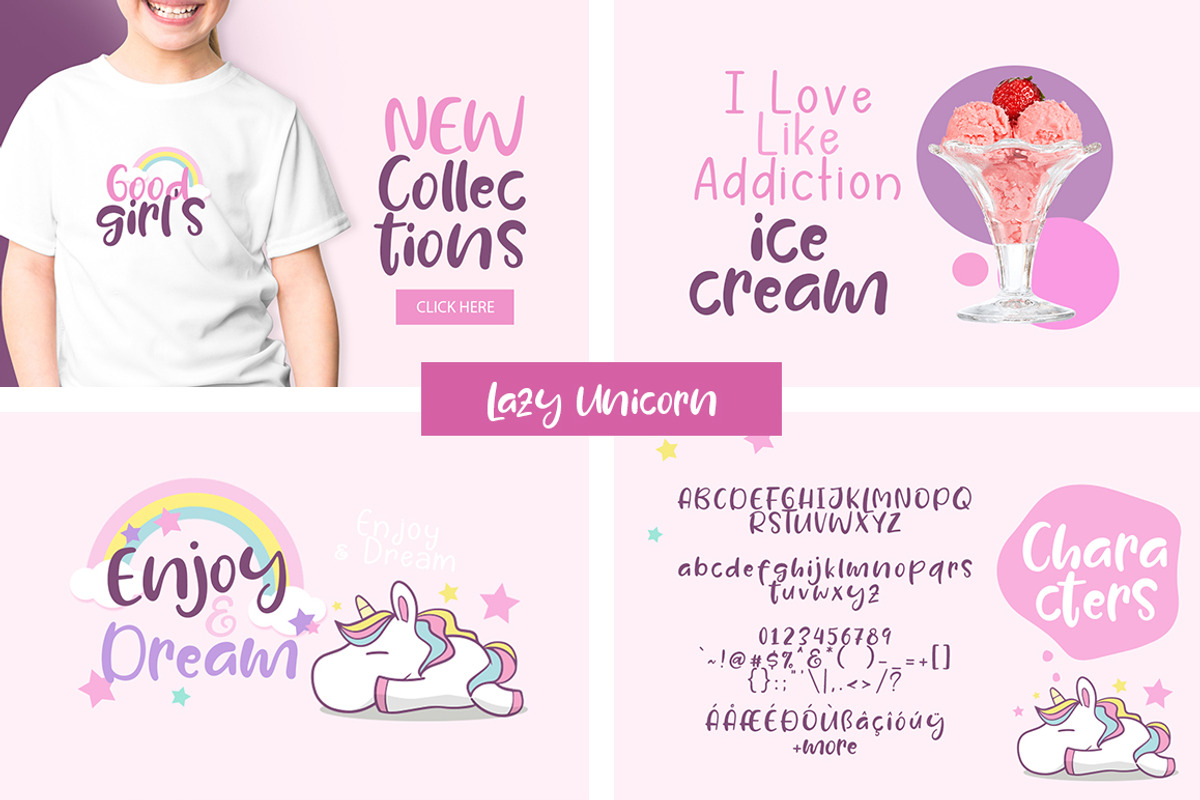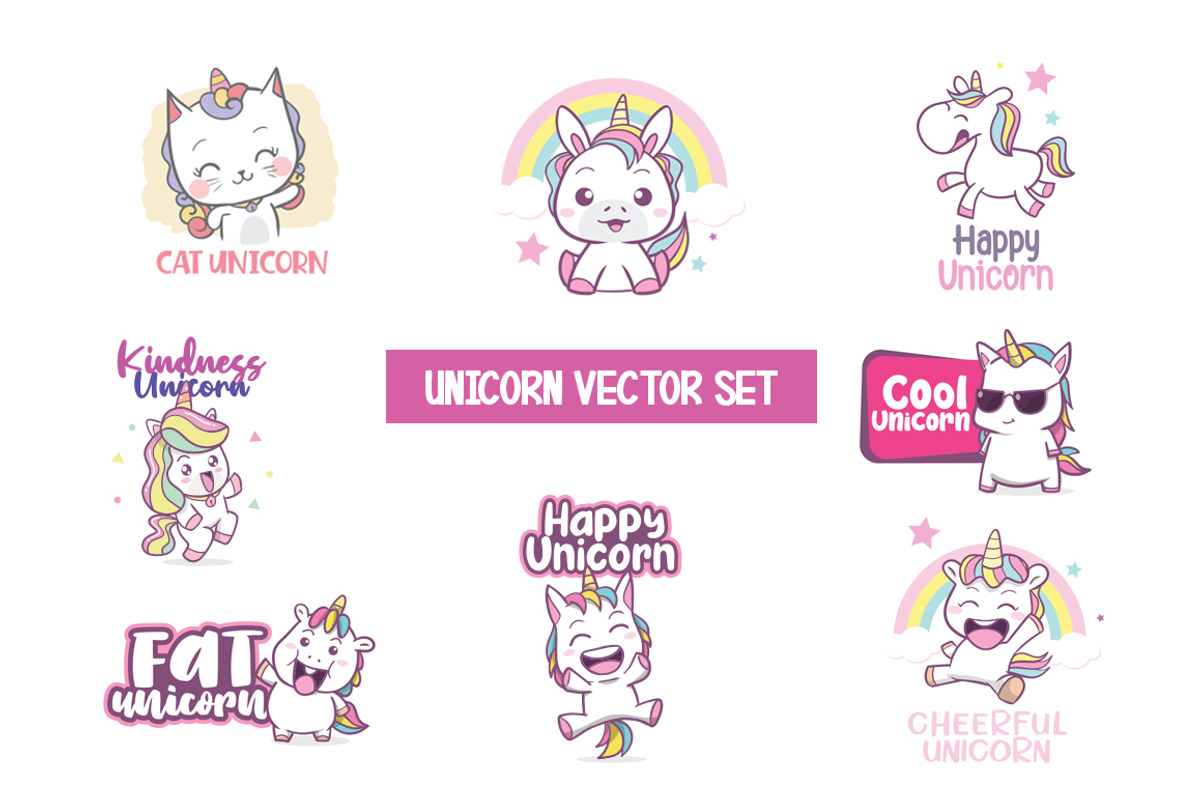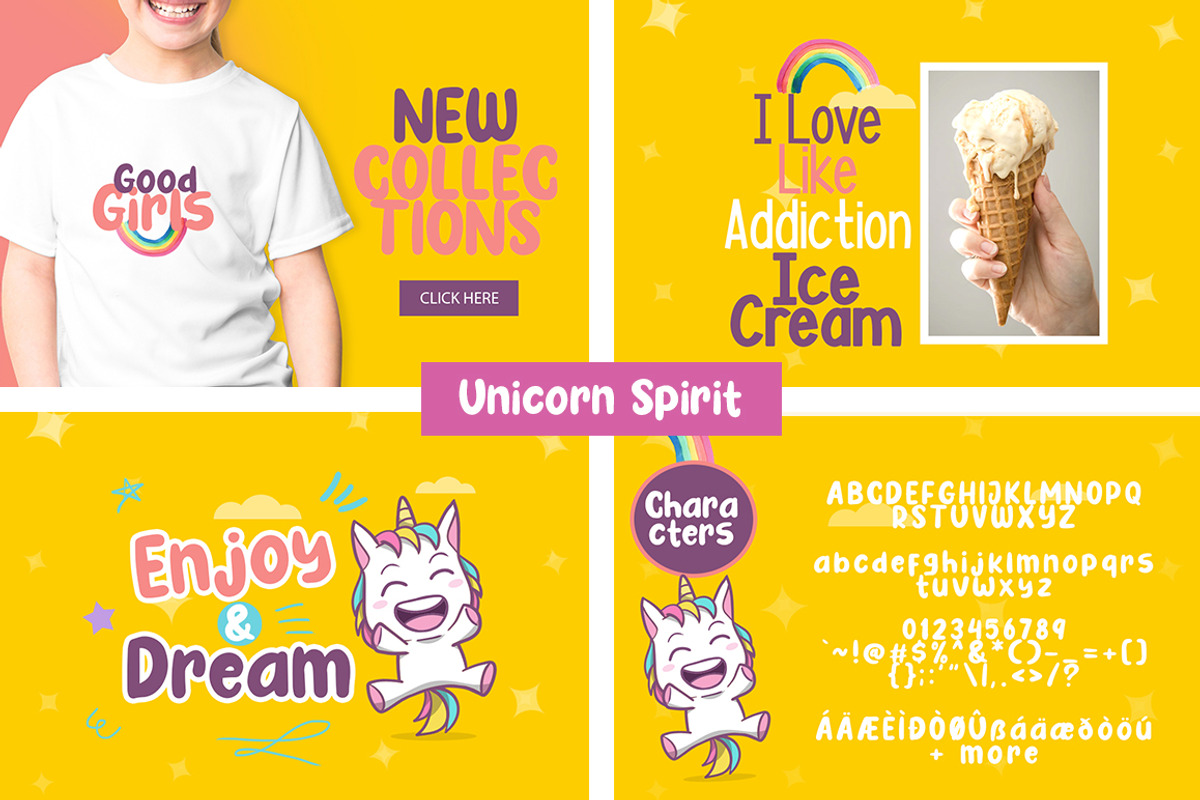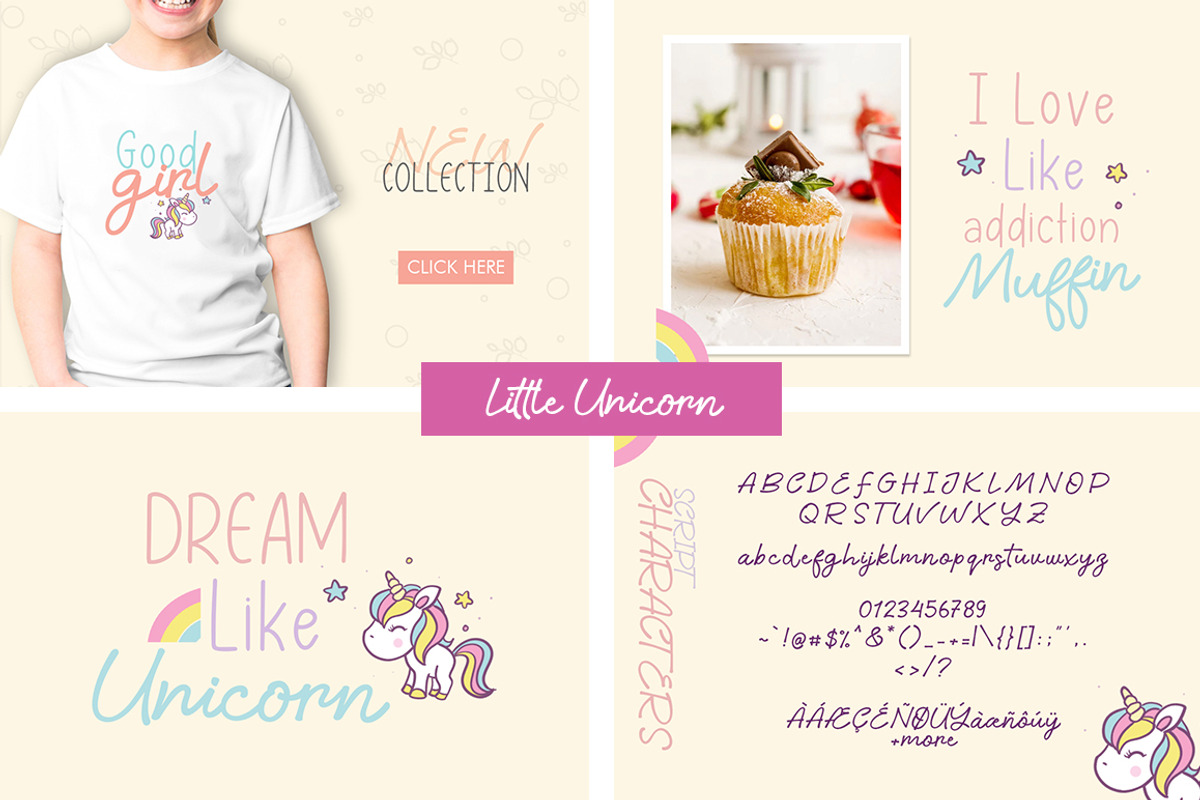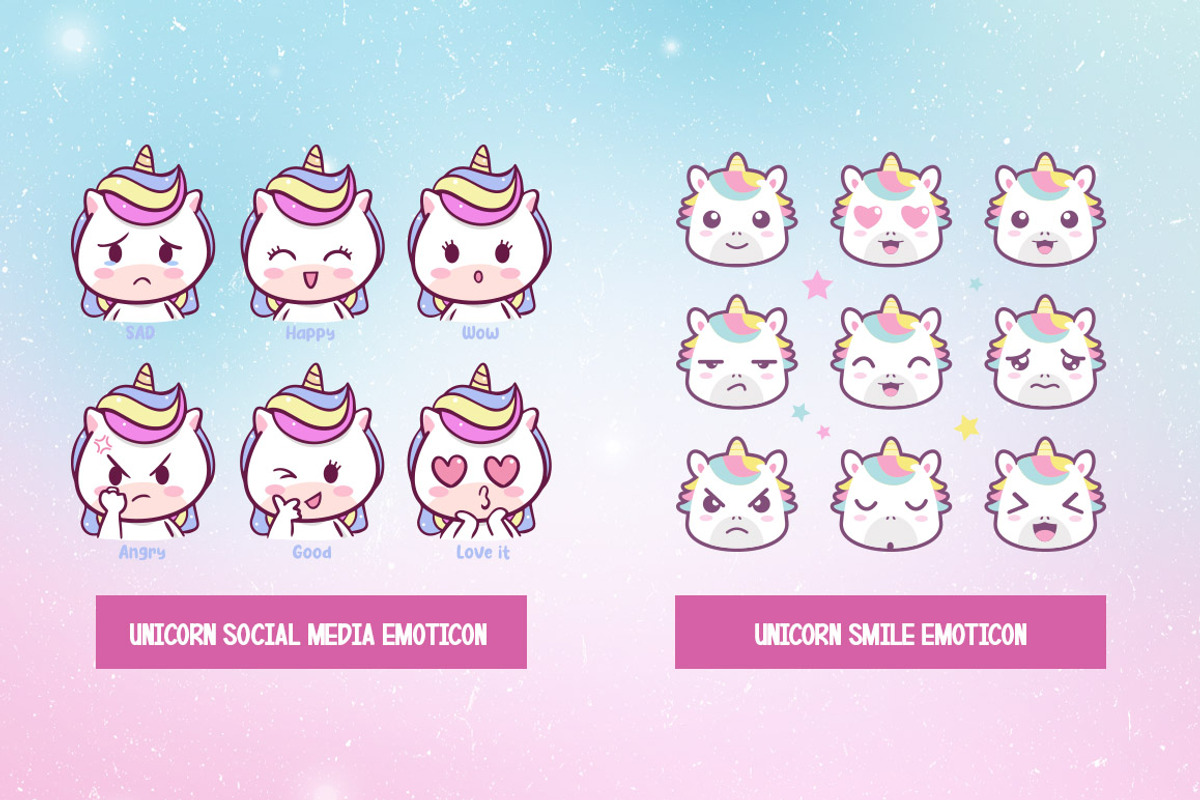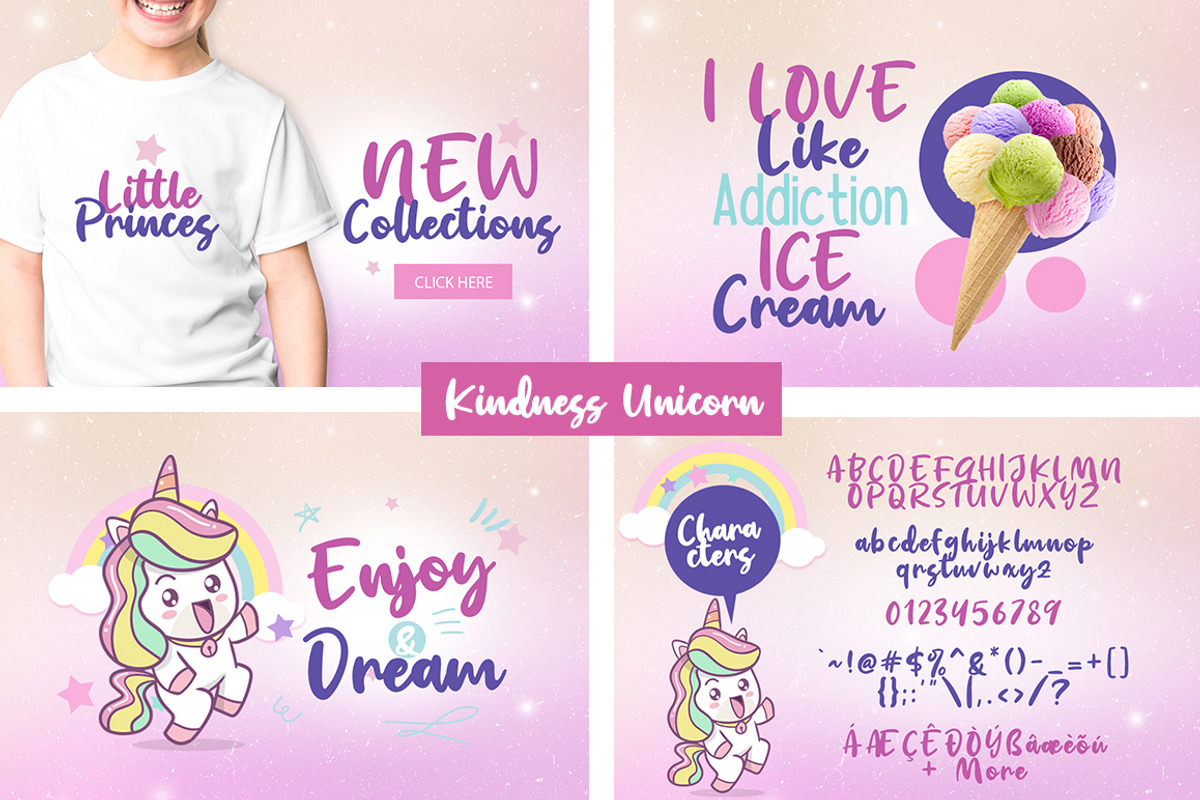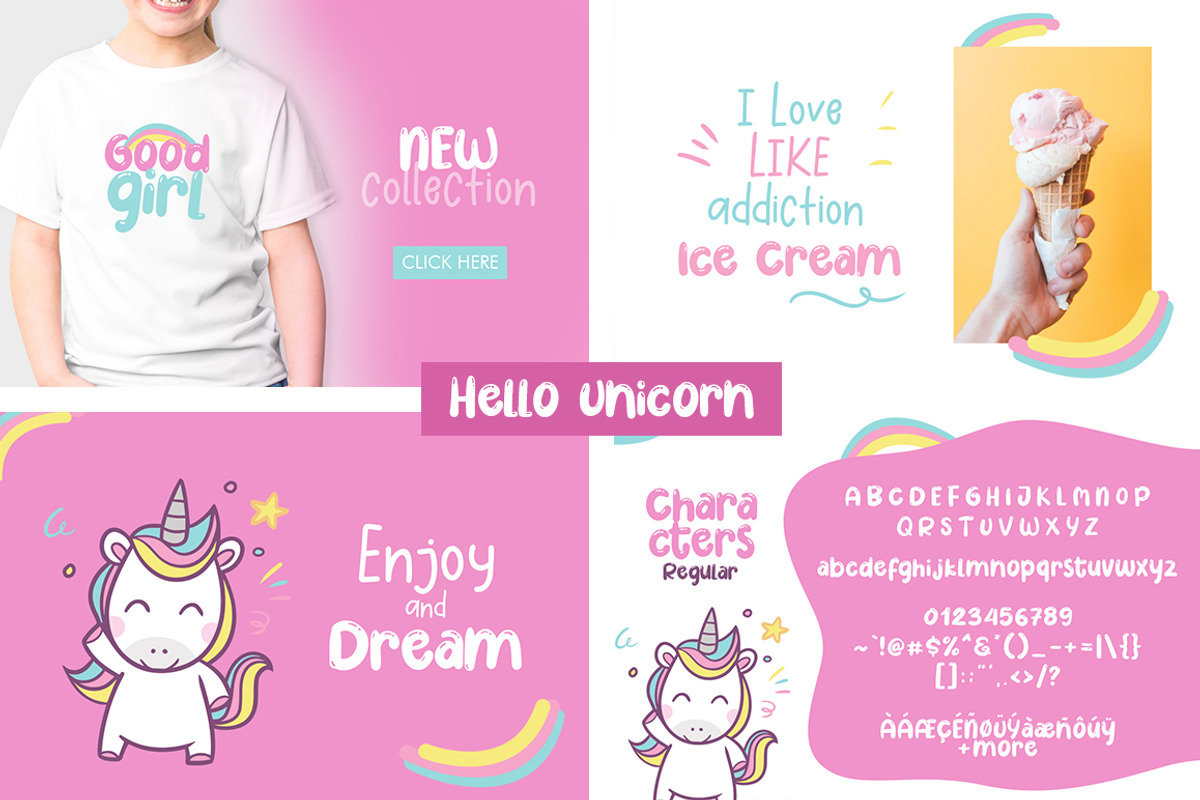
The Unicorn Dream Bundle
Font Includes :
- Fake Unicorn
- Happy Unicorn
- Cheerful Unicorn
- Little Unicorn
- Baby Unicorn
- Unicorn Spirit
- Fat Unicorn
- Cool Unicorn
- Kindness Unicorn
- Hello Unicorn
- Lazy Unicorn
- Cute Unicorn